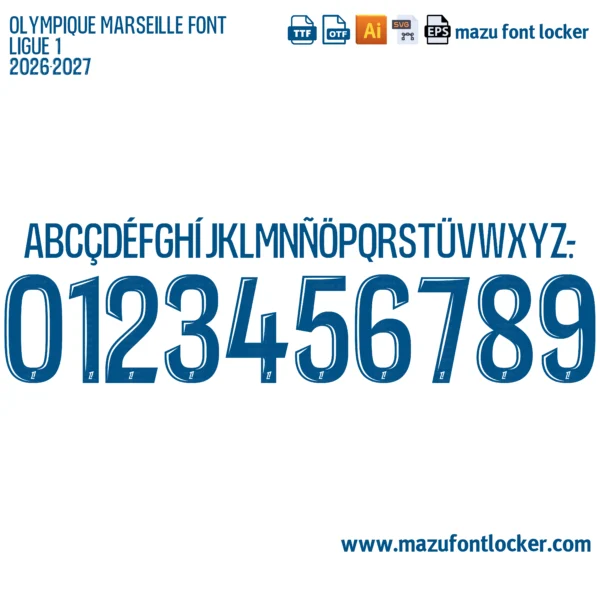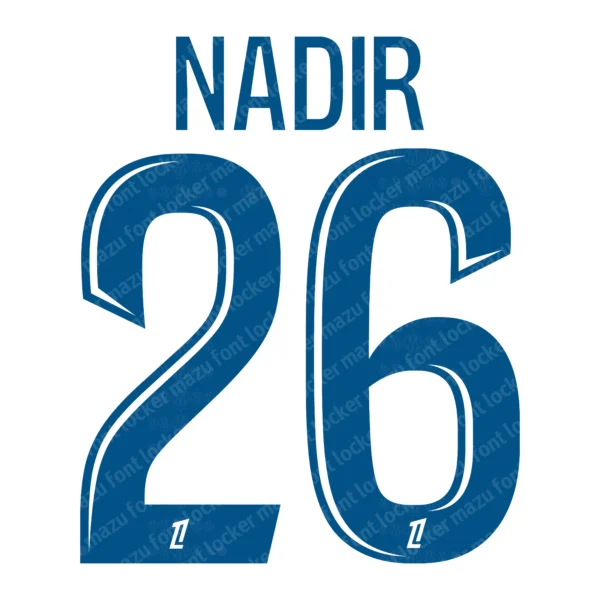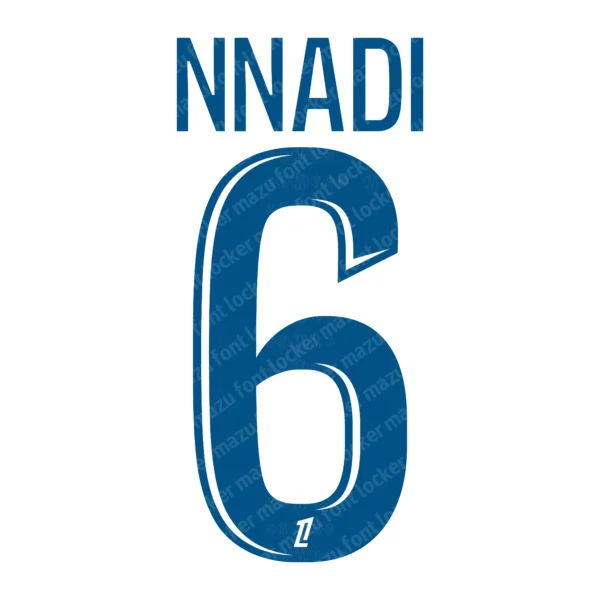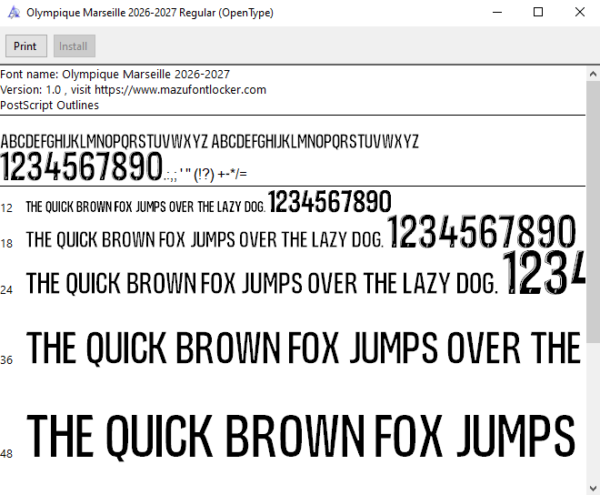
Olympique Marseille 2026-2027 Font Vector – Epic OM Legendary Masterpiece
Perfect for premium jersey mockups, dynamic football designs, high-impact sports visuals, fan creations, stadium graphics, and powerful tributes that radiate pure blue and white pride while celebrating the heroic battles and fearless conquest of Olympique Marseille on the pitch.
Olympique Marseille 2026-2027 Font Vector – Authentic Phocéens Typeface
The Olympique Marseille 2026-2027 Font Vector is a premium typeface that accurately recreates the official match lettering worn by Olympique Marseille during the 2026-2027 season. This high-quality vector font kit captures the bold, fiery, and passionate typography that represents the fighting spirit and rich history of this legendary French club.
Designed for professional designers and passionate OM fans, the Olympique Marseille 2026-2027 Font Vector delivers perfect authenticity for creating realistic jersey mockups, fan merchandise, matchday posters, social media graphics, and Stade Vélodrome content. It pairs beautifully with the iconic white home kit featuring the famous Marseille crest.
Why Choose Olympique Marseille 2026-2027 Font Vector
This font stands out because of its sharp vector precision and strong club identity. Every letter and number is crafted to match the exact style used on the players’ shirts during the 2026-2027 campaign. Whether you are making realistic kit templates or exciting Phocéens content, the Olympique Marseille 2026-2027 Font Vector gives your designs that authentic OM look.
The letterforms in the Olympique Marseille 2026-2027 Font Vector are tall, bold, and highly readable. The strokes have a strong, clean weight with excellent edge definition that looks powerful on the back of jerseys while maintaining classic French passion and Mediterranean fire.
- Full uppercase A–Z and numbers 0–9 in authentic Olympique Marseille 2026-2027 style
- Multilingual Latin character support including diacritics
- Create highly realistic Olympique Marseille 2026-2027 home and away jersey mockups with accurate lettering
- Design stunning match posters, score graphics, and squad announcements
- Produce custom OM merchandise with the 2026-2027 aesthetic
- Make engaging social media content for Instagram, TikTok, YouTube and more
- Includes the exact crest glyph placement used under player numbers
The Olympique Marseille 2026-2027 Font Vector is an independently designed typeface package. It is carefully crafted to replicate the official shirt lettering style of the 2026-2027 season. This font kit is perfect for creative projects, fan edits, nostalgic jersey designs, and custom football graphics.